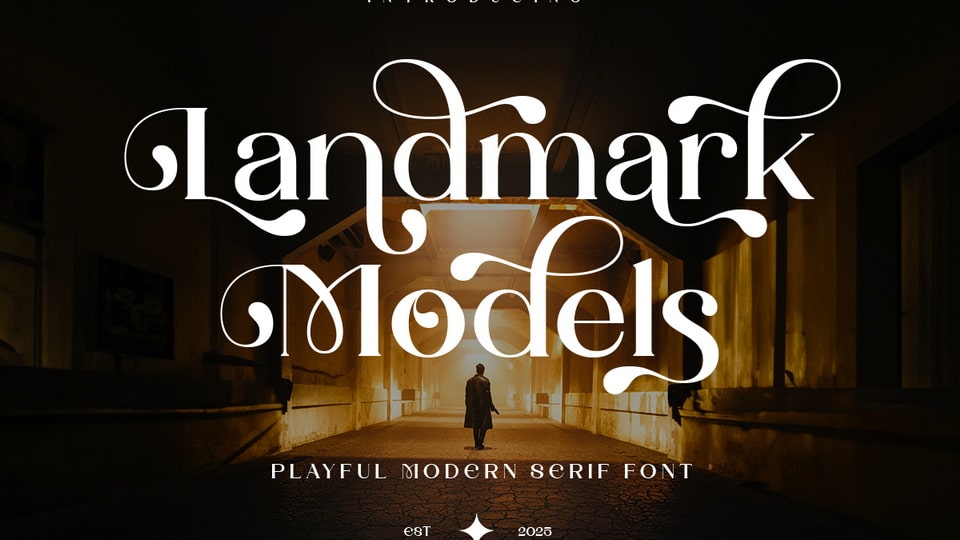
Download Landmark Models font, a playful modern serif typeface that exudes elegance, creativity, and timeless charm with expressive curves and refined details.